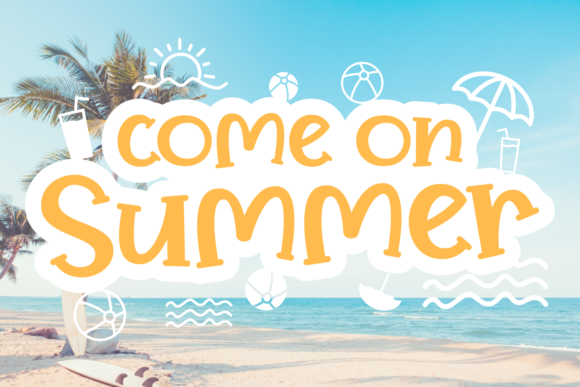
Step into the enchanting world of Come On Summer, a font duo that captures the essence of a joyous summer breeze. This harmonious blend of serif and dingbats brings a playful and assertive touch to your creative endeavors, leaving an indelible impression on all who encounter it.
With its distinctive charm, Come On Summer breathes life into your projects, making them burst with vibrancy and personality. This font is a true visual masterpiece, a testament to the boundless creativity of its creator, Dani (7NTypes).
Welcome to a summer filled with endless possibilities, where imagination knows no bounds. Come On Summer's captivating characters and invigorating style invite you to unleash your inner child, igniting a spark of joy and wonder in every design.
Let Come On Summer be your guide as you embark on a creative journey like no other. From whimsical children's books to eye-catching posters, this font duo adds a touch of magic to every project, transforming the ordinary into the extraordinary.
Whether you're a seasoned designer or just starting out, Come On Summer is the perfect companion for your creative pursuits. Its versatility knows no limits, effortlessly adapting to a wide range of projects, from playful invitations to captivating social media posts.
Immerse yourself in the vibrant world of Come On Summer, where creativity flourishes and dreams come alive. Let this font duo be your muse, inspiring you to create designs that resonate with audiences of all ages. Embark on a summer adventure with Come On Summer and let your imagination soar!